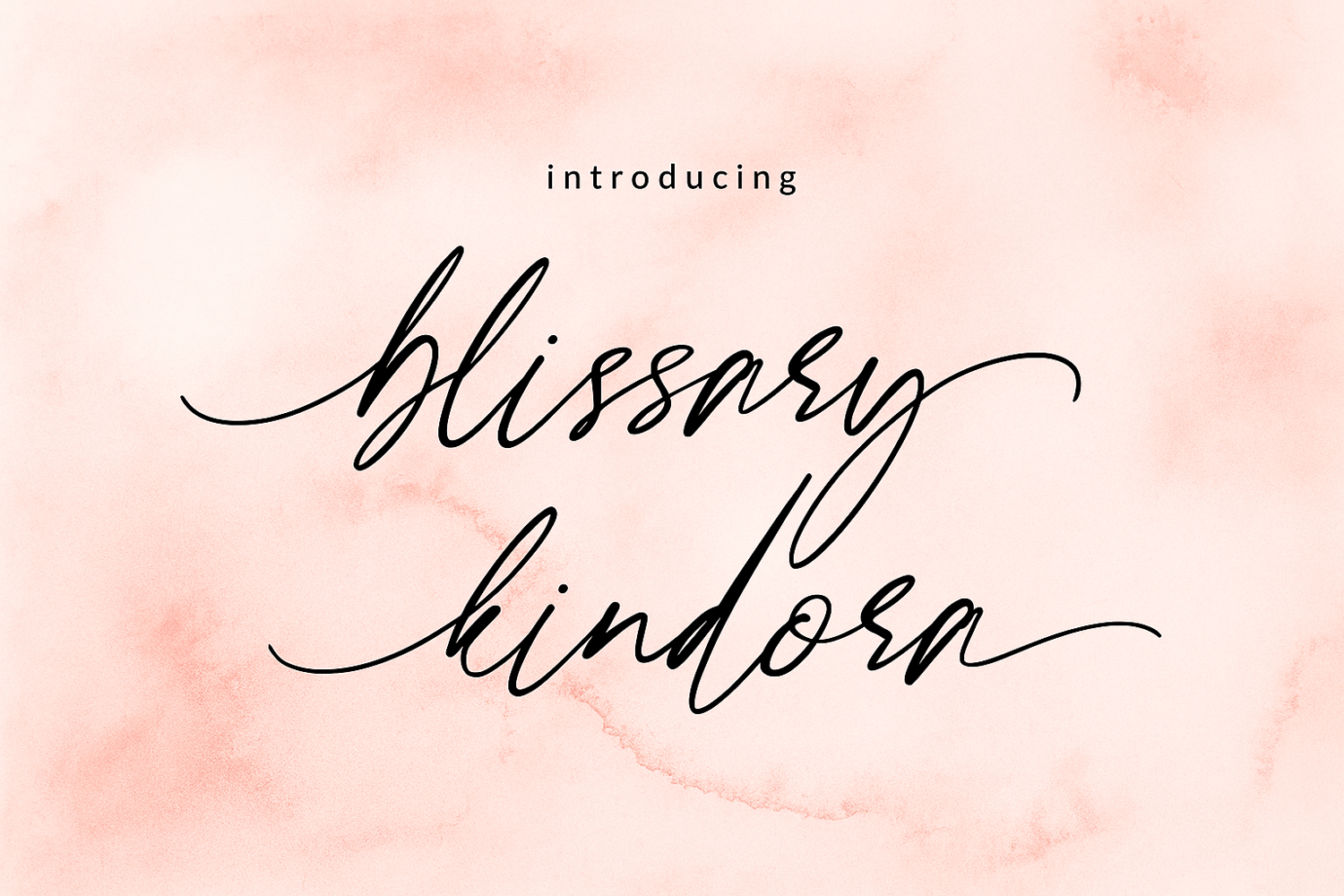
Blissary Kindora
Blissary Kindora Handwritten Stylish Font is a modern and elegant script font, perfect for adding a professional touch to any project. Its flowing, cursive style exudes sophistication and charm. Ideal for invitations, branding, and other creative designs that require a touch of uniqueness and elegance.